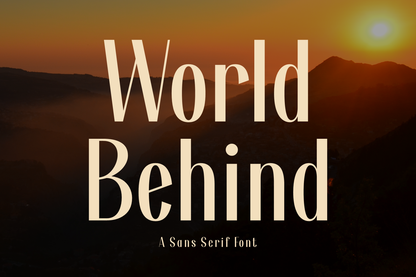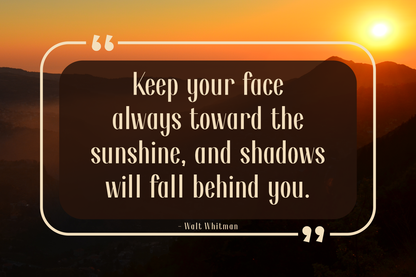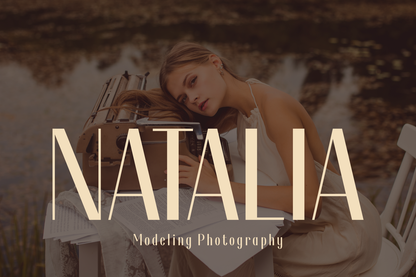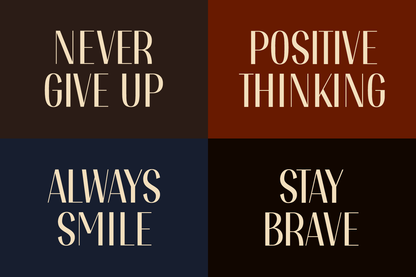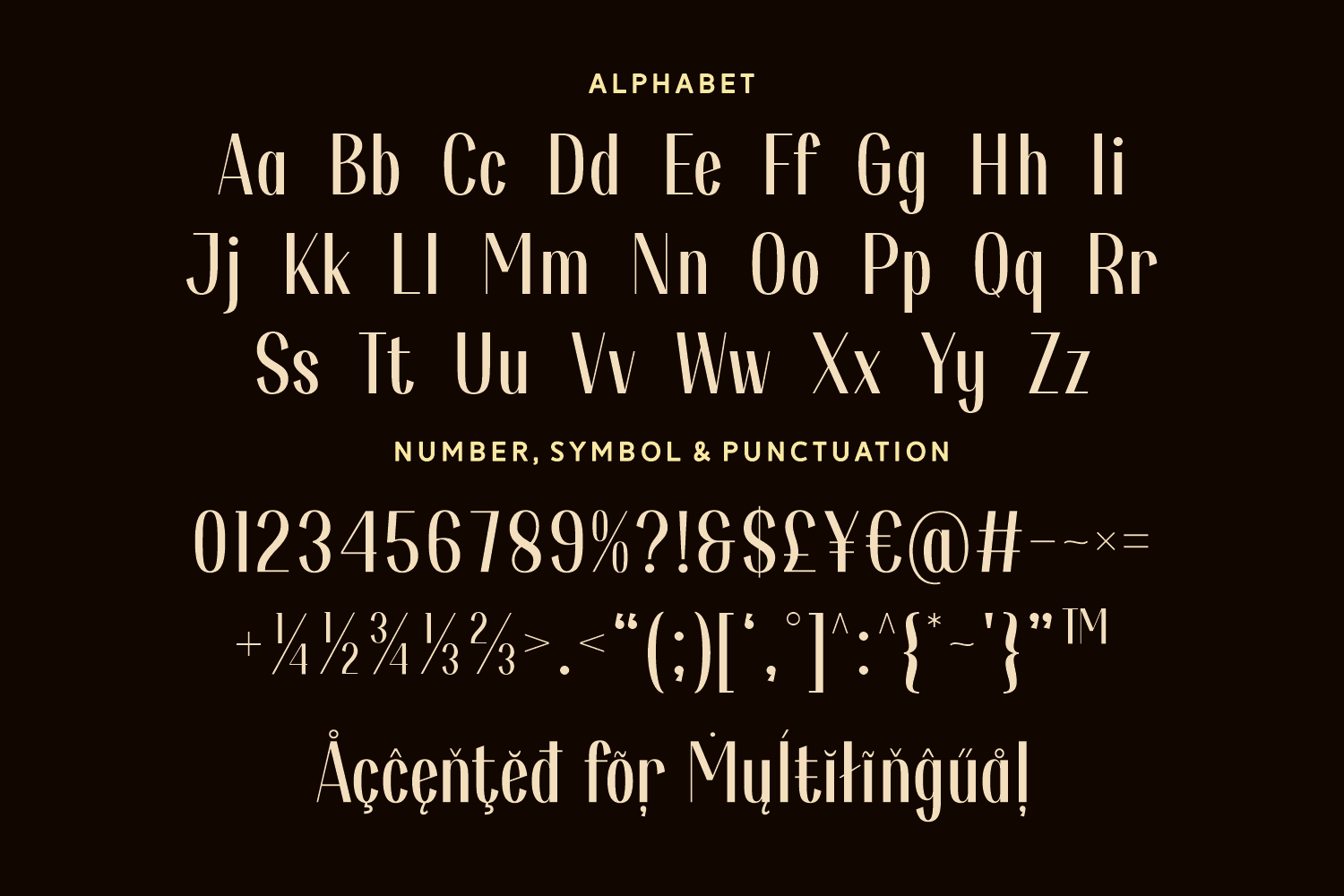
World Behind is a tall, elegant sans serif font with a timeless silhouette and graceful curves. Its sophisticated letterforms bring a refined feel to editorial designs, luxury branding, and artistic projects. Whether used in fashion spreads or dramatic title designs, it evokes nostalgia with a modern twist.